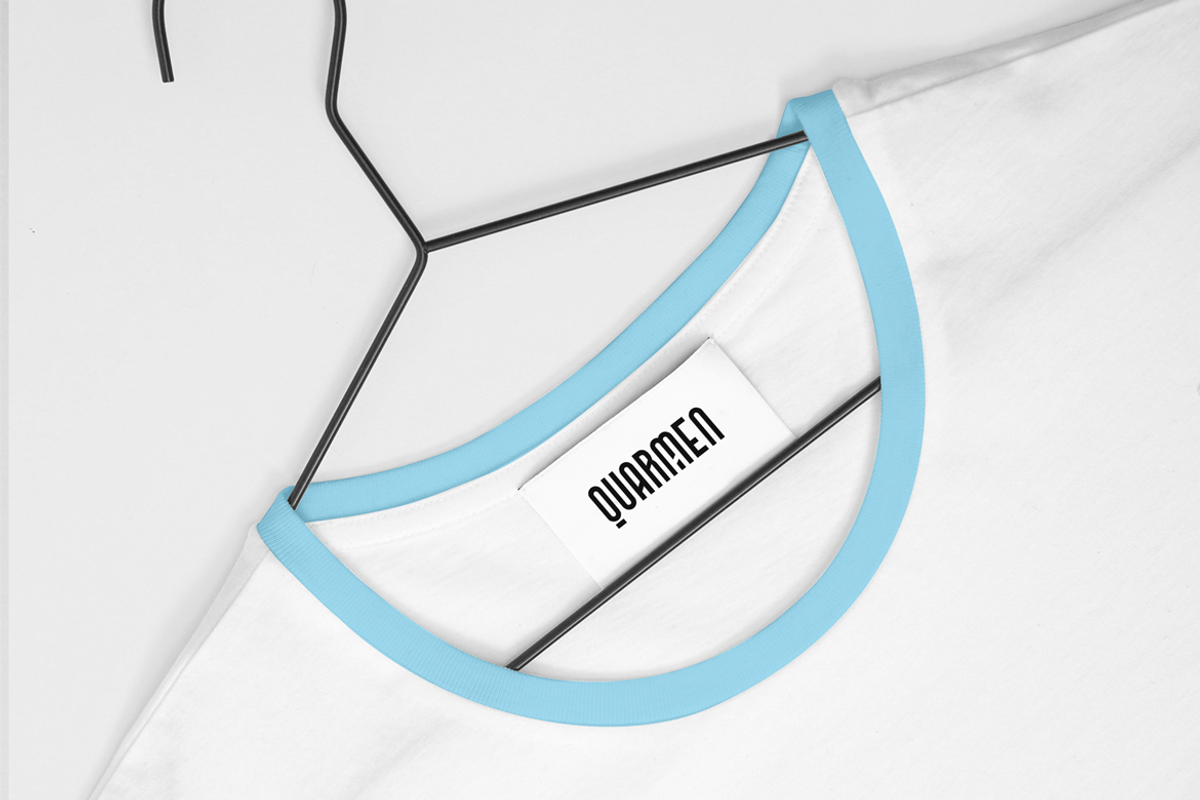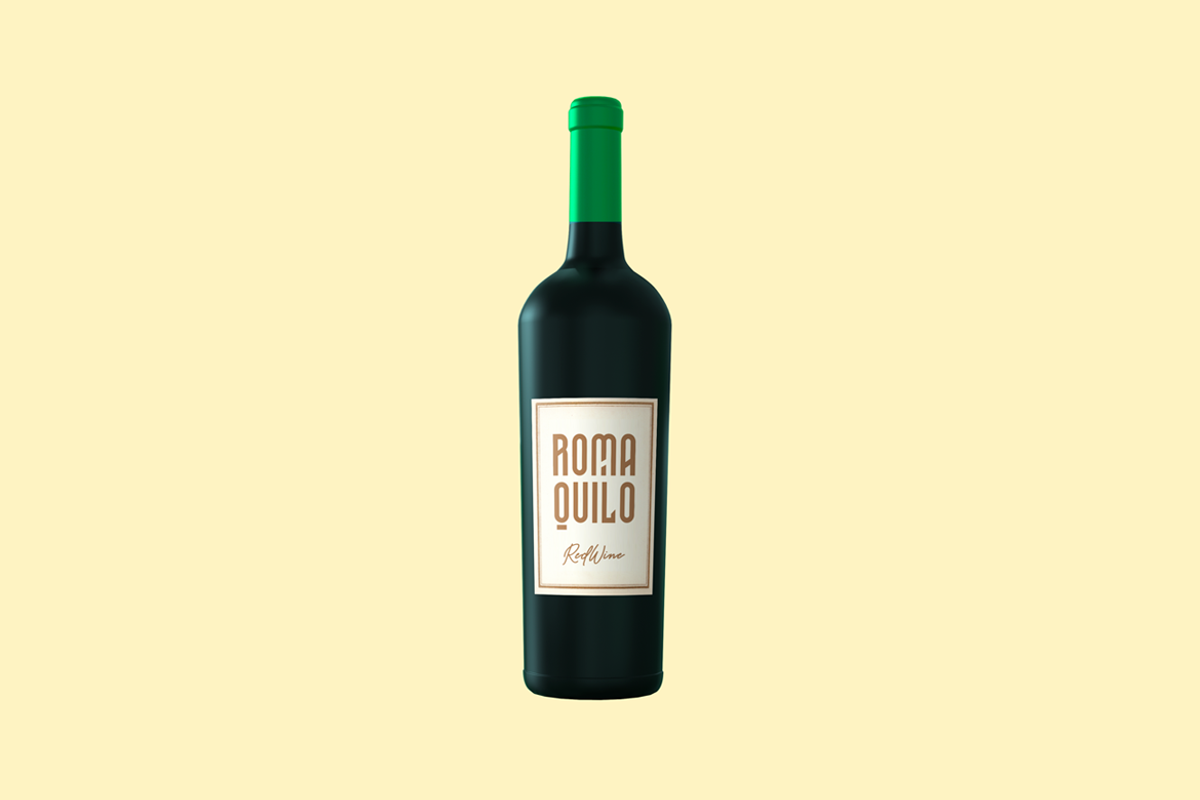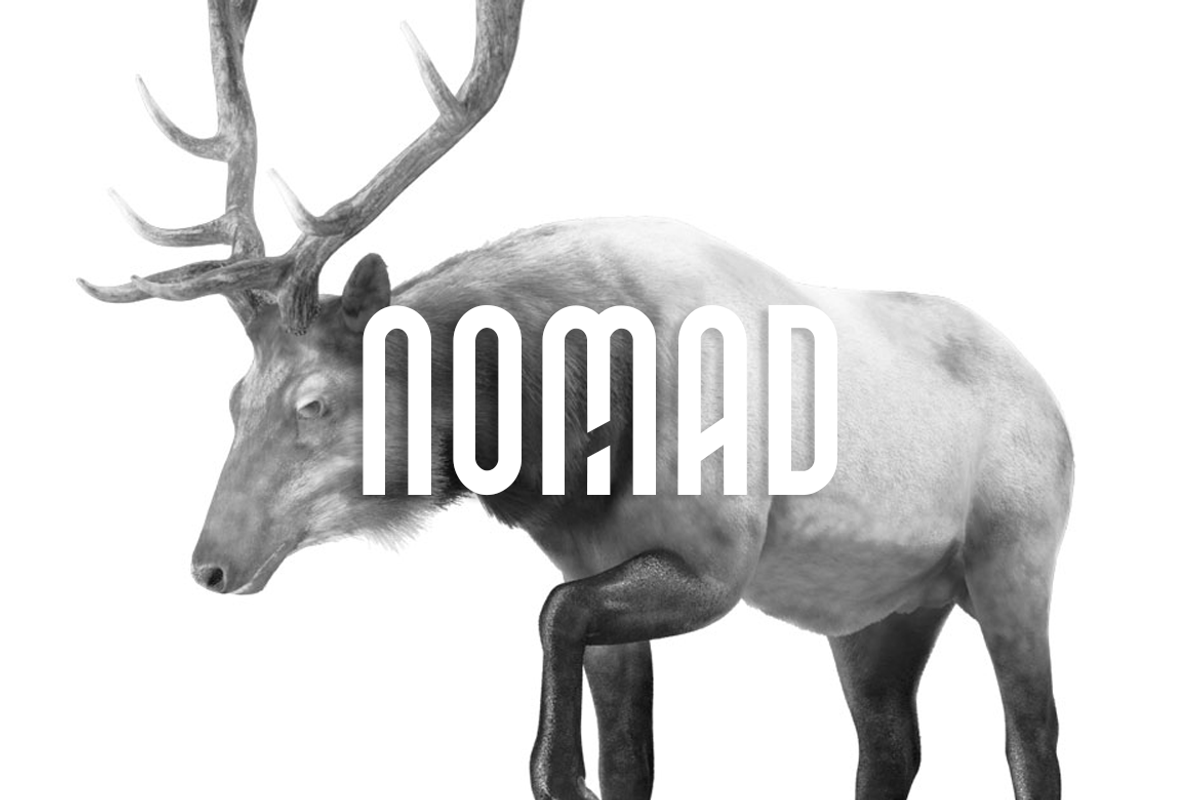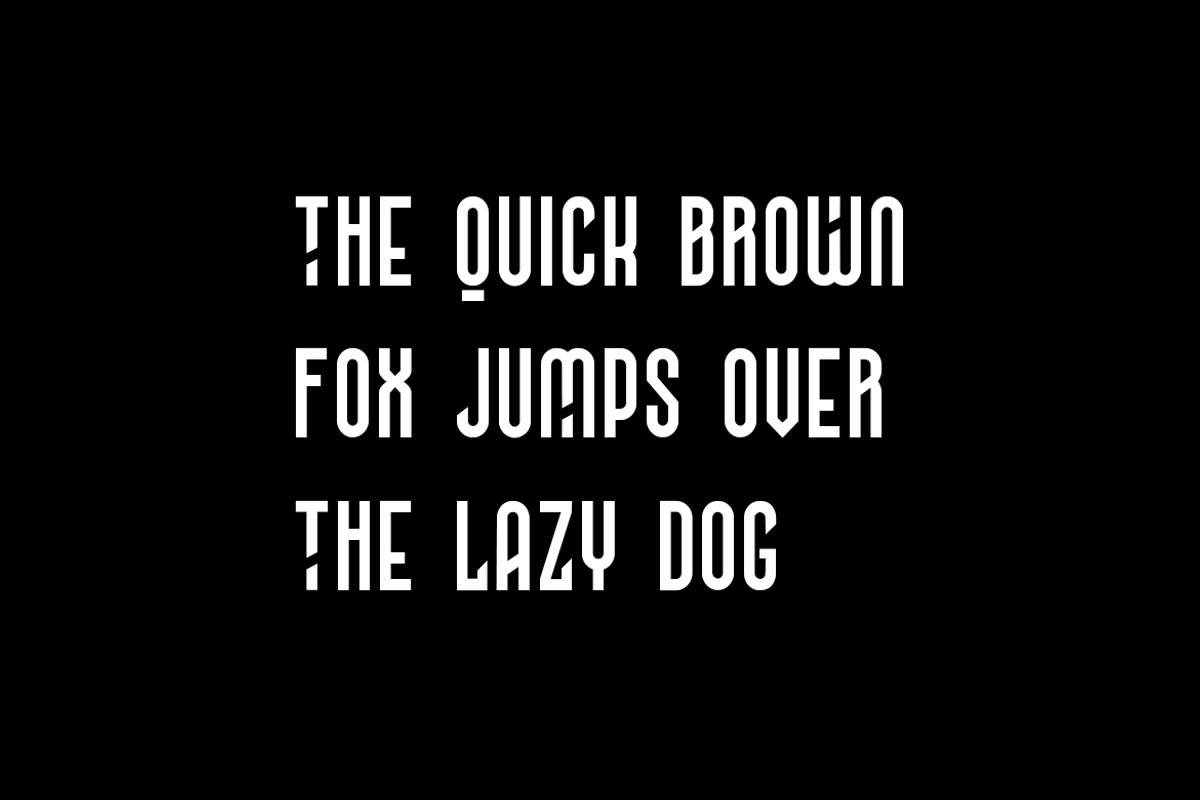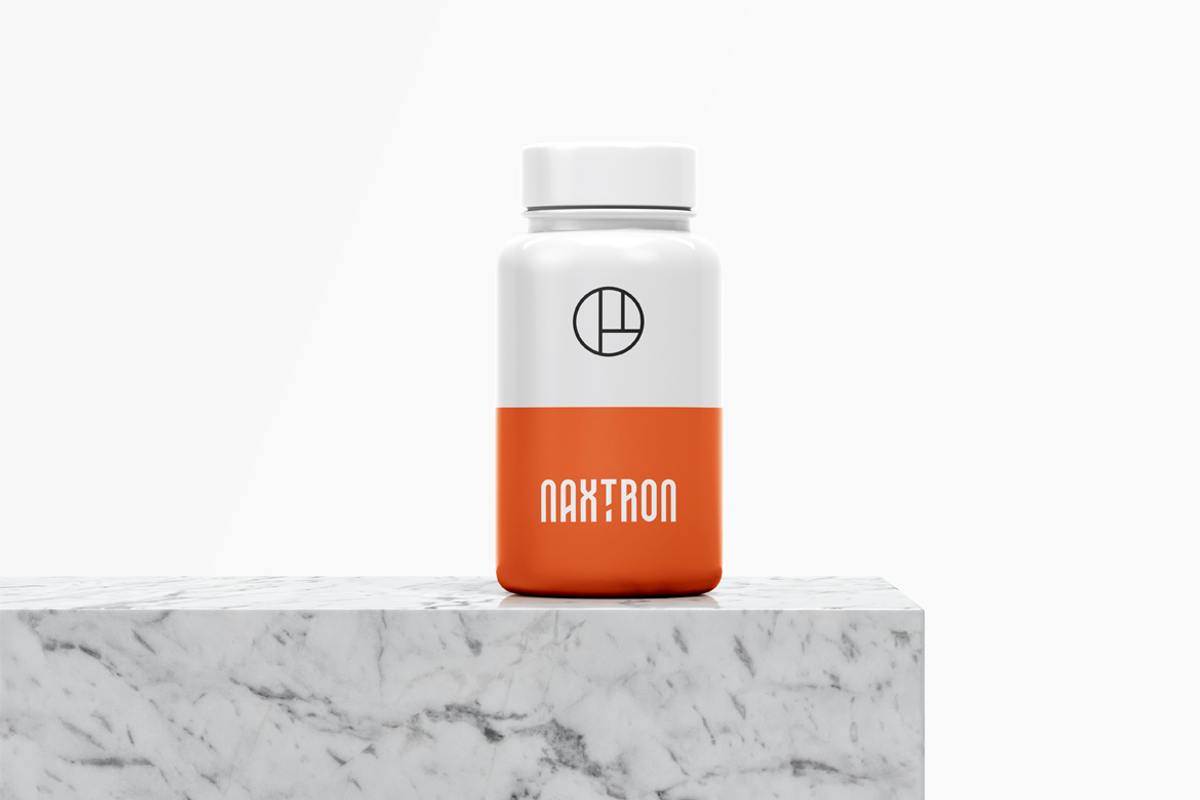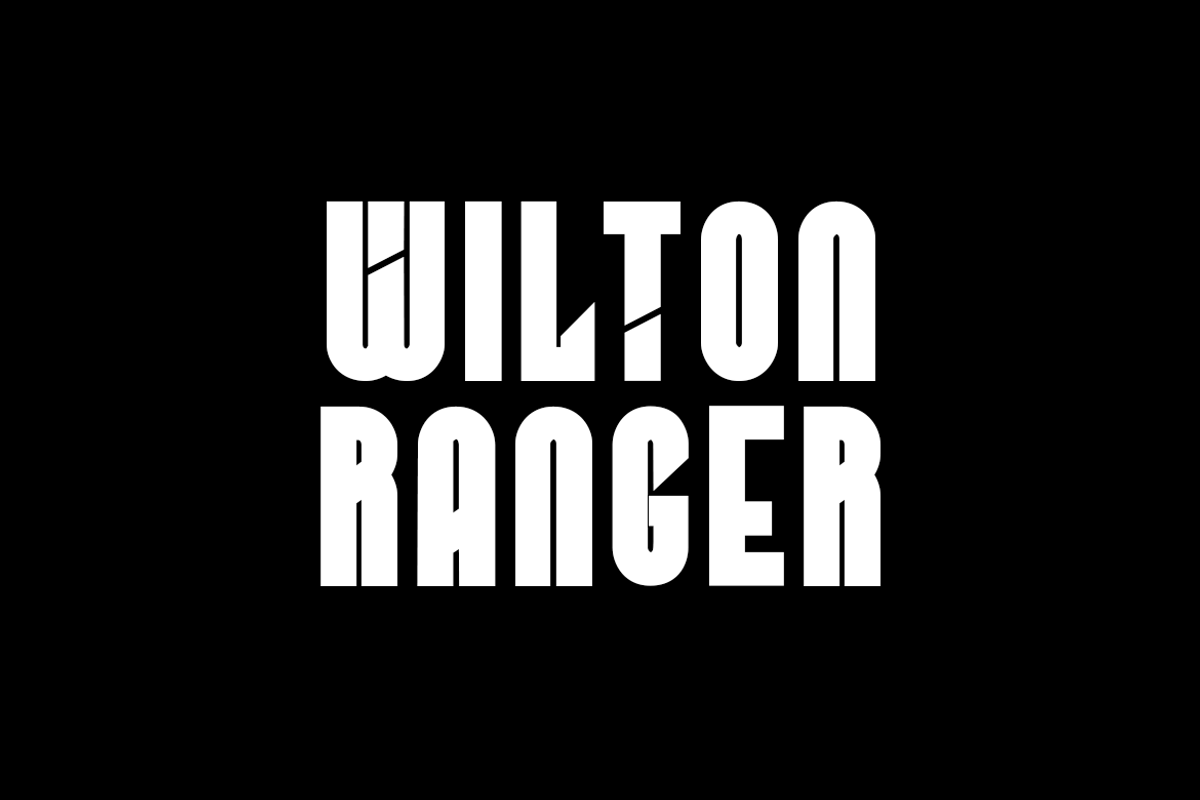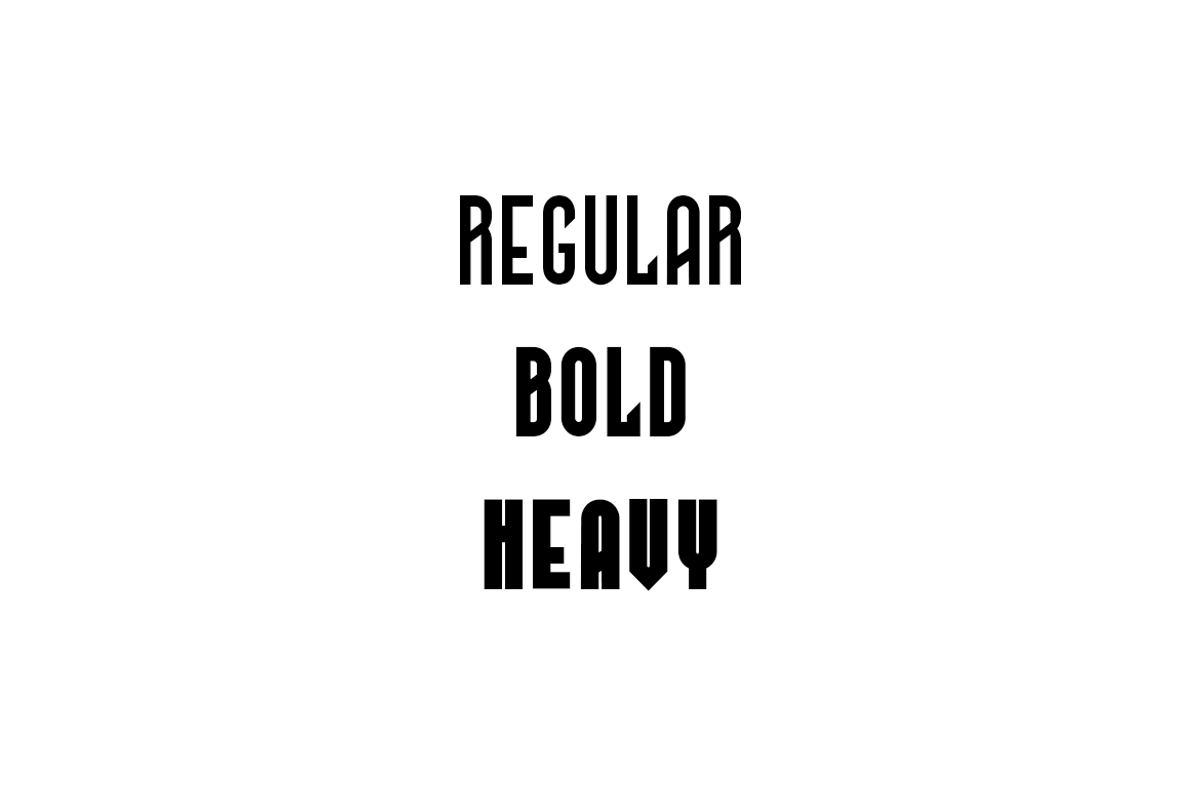
NOMAD - Unique Display Typeface
NOMAD is the unique all-caps display typeface particularly dedicated for display / headline / branding / logotype usage. NOMAD will be best suited for creating nicely looking logos, brand identities and headlines. Just see the demo images given above for an abstract idea about the capability of this typeface.
NOMAD typeface comes with 3 weights: REGULAR / BOLD / HEAVY. The pack includes Desktop Fonts (OTF & TTF) and Web Fonts (all EOT, SVG, TTF, WOFF, WOFF2 included) as licensing options.